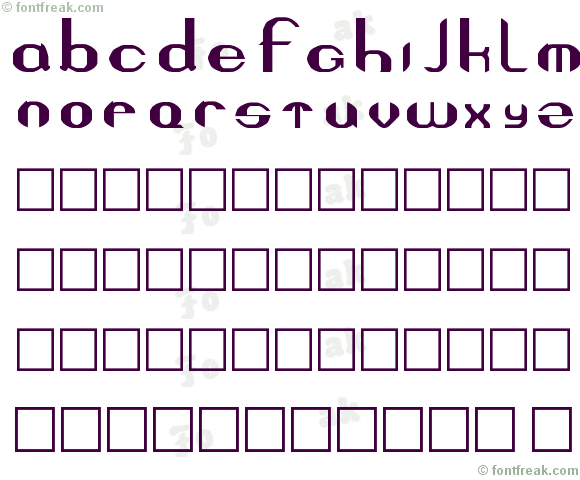
QUESTOR
About Questor
Questor, designed by Snatchsoft in 1998, is a distinctive display font that captures attention with its unique character. This shareware font features a captivating blend of bold, rounded strokes and elegant curves, making it an excellent choice for various creative projects. The stroke weight is consistent, providing a solid presence, while the moderate contrast adds just enough flair to make it visually engaging. The spacing between letters is well-balanced, enhancing readability while maintaining a contemporary aesthetic.
The Questor font is perfect for a range of applications. It's particularly suited for wedding invitations, where its stylish design can convey elegance and romance. Additionally, it shines in movie posters, adding a dramatic flair that draws the viewer in. Restaurant menus can also benefit from Questor's unique appeal, making dishes stand out and enticing patrons. For content creators, the font serves as an eye-catching option for social media graphics, ensuring posts grab attention in crowded feeds. Graphic designers seeking to make a statement will find Questor to be an inspiring choice for branding materials, logos, and promotional content.
The target audience for Questor includes graphic designers, small business owners, and content creators looking for a font that balances modernity with uniqueness. Its memorable style can help establish a brand identity that resonates with audiences.
In conclusion, Questor stands out not only for its aesthetic appeal but also for its versatility across various design contexts. The combination of its bold presence and elegant curves allows it to elevate any project. For those interested, a Questor font free download offers an opportunity to incorporate this striking typeface into your creative toolkit, ensuring your designs are both impactful and memorable.